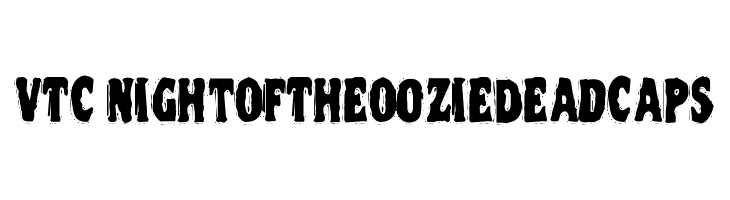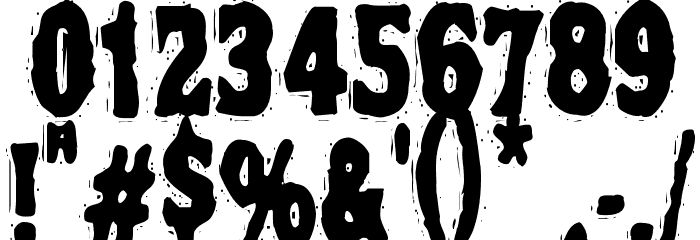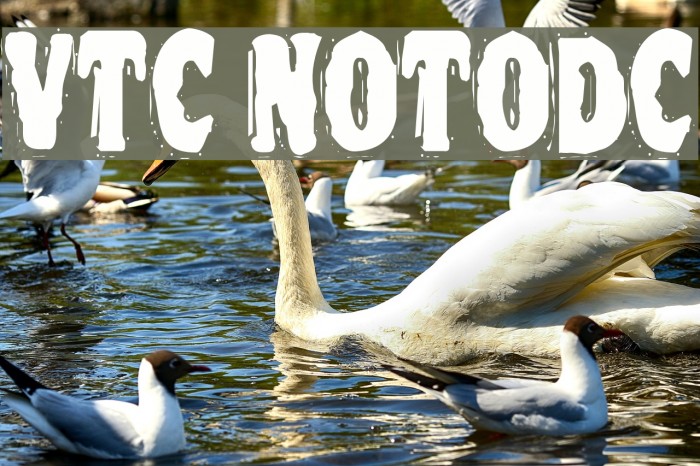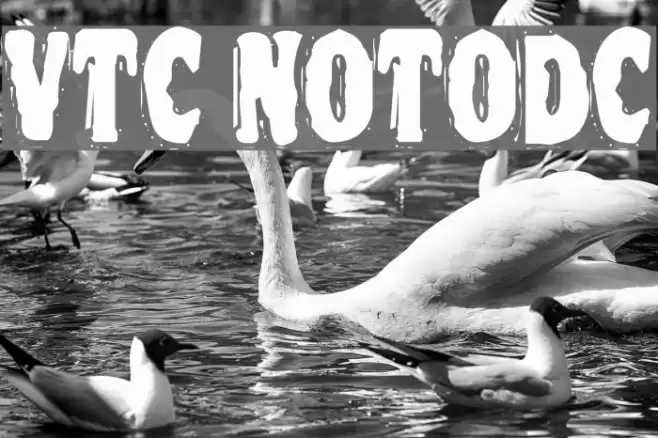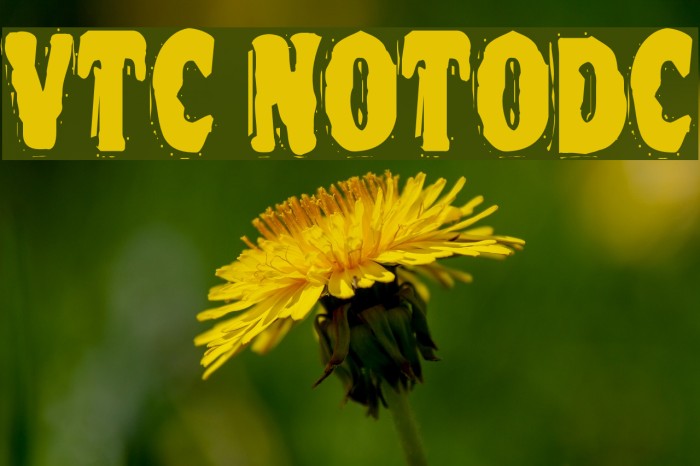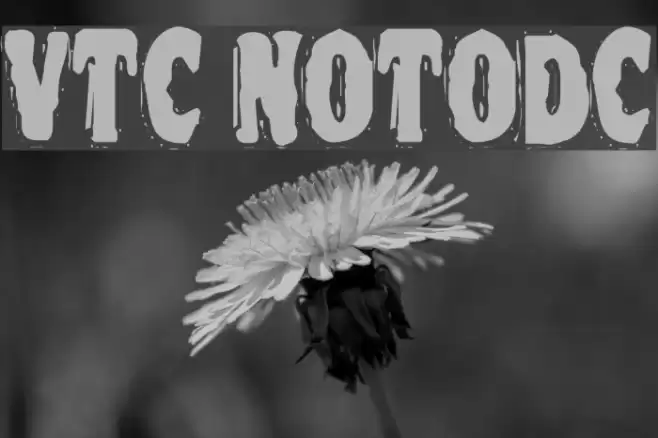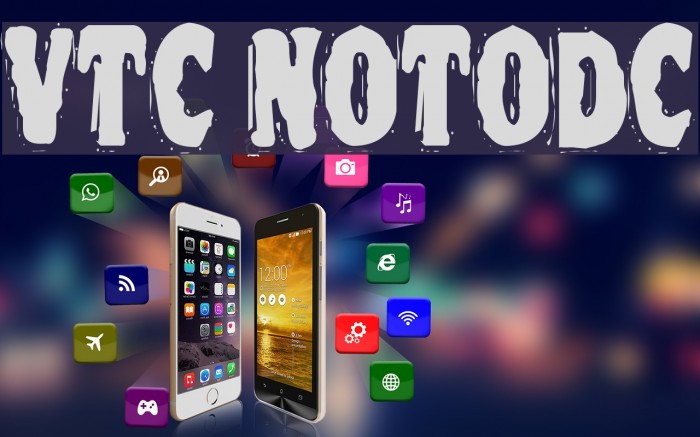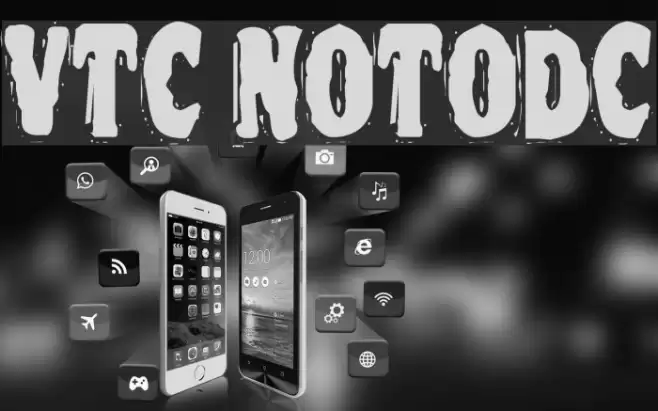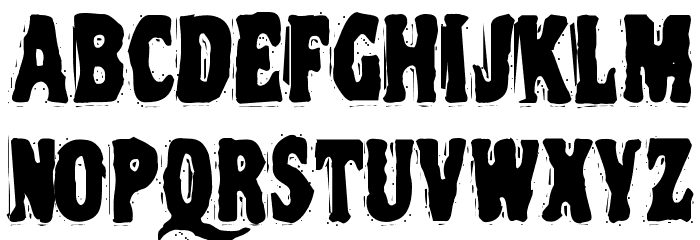
VTC NightOfTheOozieDeadCaps Font
VTC NightOfTheOozieDeadCaps Description
This font features a bold, dramatic style with thick, uneven strokes that create a sense of movement and energy. The letters have a distressed, grungy appearance, reminiscent of horror or thriller themes. The characters are slightly irregular, adding to the chaotic and dynamic feel. This font is highly decorative, making it ideal for eye-catching designs that require a strong visual impact. The numbers and special characters follow the same bold and distressed style, ensuring consistency across all elements.
| Use Case | Headlines, Posters, Logos |
| Proposed Projects | Ideal for horror movie posters, Halloween event flyers, themed party invitations, and any design requiring a dramatic, spooky aesthetic. |